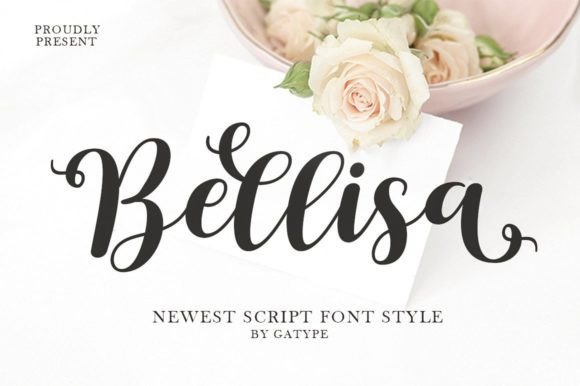
Unleash the Beauty of Expression with Bellisa Script Font: Your Ultimate Creative Companion
Immerse yourself in an enchanting realm of visual artistry with Bellisa Script Font, a masterpiece that captures the elegance of handwritten finesse and the allure of classic typography. With its bold, contrasting strokes and a dash of playful charm, Bellisa is a symphony of style that invites you to explore new horizons of creativity.
Step into the world of high fashion and envision your designs gracing the covers of renowned magazines, emblazoned with the alluring curves of Bellisa Script. Its graceful strokes possess the power to transform ordinary words into captivating headlines, drawing the eye with a captivating allure that whispers of elegance and sophistication.
Whether you're crafting a captivating movie title that sets the stage for an epic tale or designing a book cover that entices readers with its timeless charm, Bellisa Script Font is your ultimate creative companion. Its versatility knows no bounds, effortlessly adapting to short and long texts, adding a touch of sophistication to logos, and seamlessly blending with sans or serif fonts for stunning visual compositions.
With Bellisa Script Font, you possess the key to unlock a world of limitless possibilities. Create stunning social media posts that captivate your audience, leaving them yearning for more. Elevate your branding to new heights, crafting logos that exude an air of professionalism and distinction. Explore the realm of book design, adorning your covers with lettering that beckons readers to delve into the enchanting worlds within.
Dive into the boundless depths of creativity with Bellisa Script Font and witness the transformation of your designs into works of art. Its PUA encoding grants you effortless access to a treasure trove of glyphs and swashes, empowering you to unleash your imagination and create breathtaking masterpieces.
Don't let your creative spirit be confined by ordinary fonts. Embrace the allure of Bellisa Script Font and embark on a journey of visual storytelling that leaves your audience spellbound. Let your designs bloom with elegance, captivating hearts and igniting imaginations.